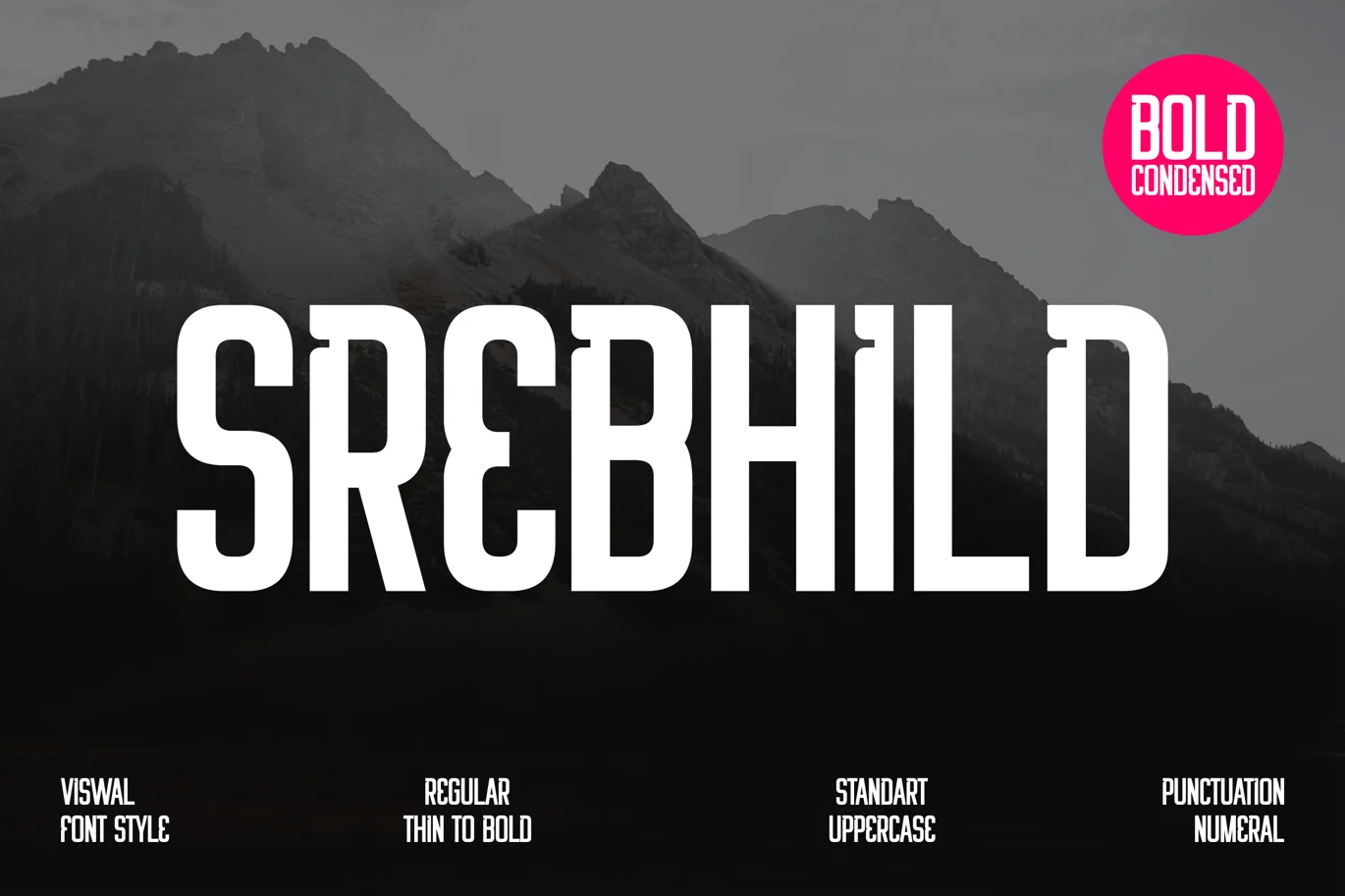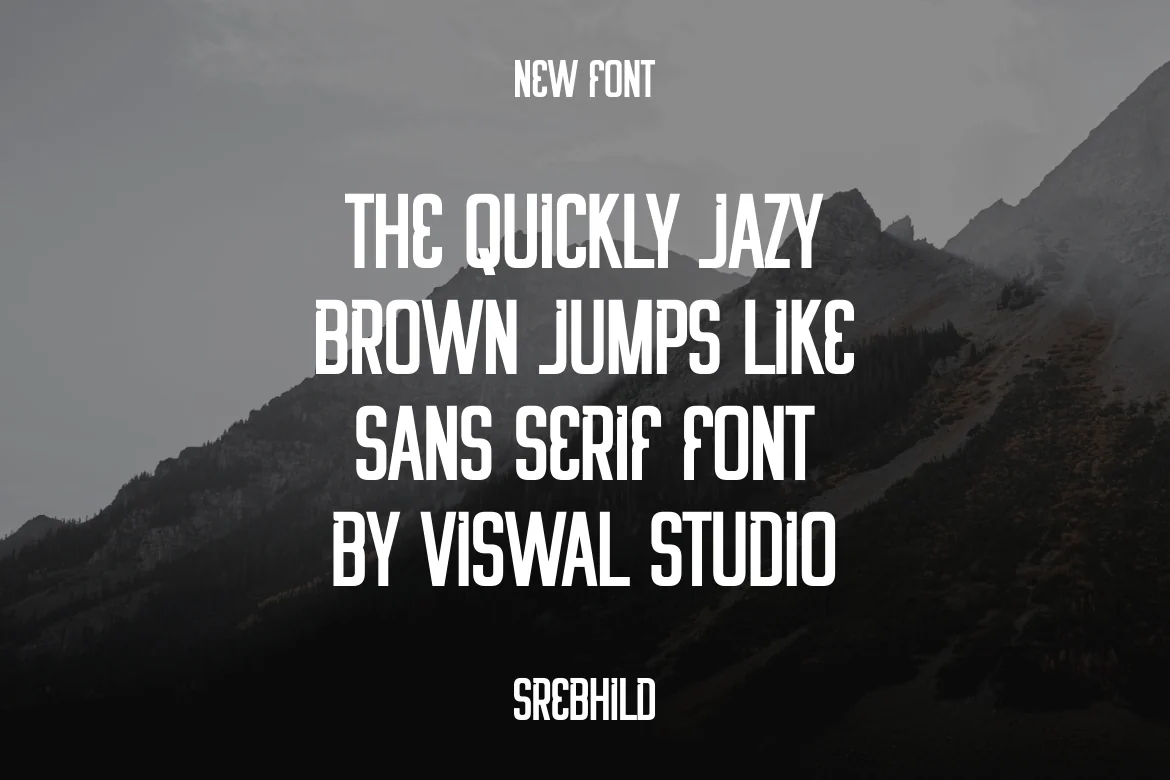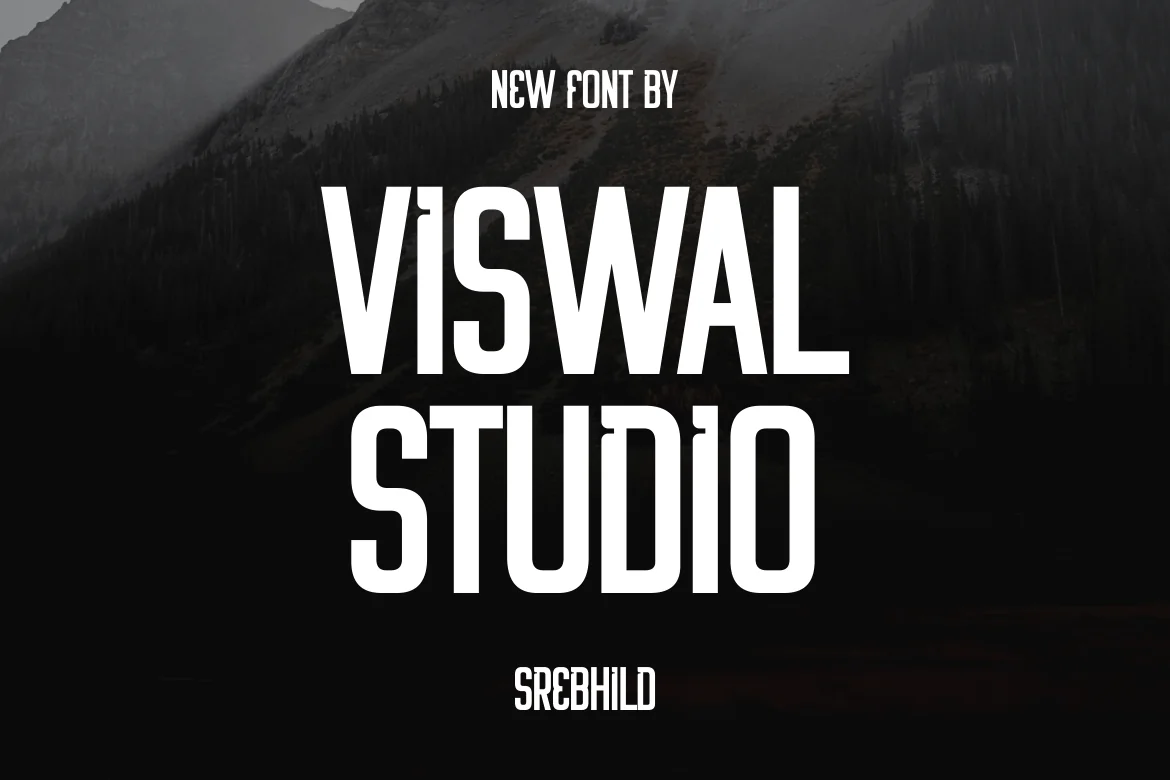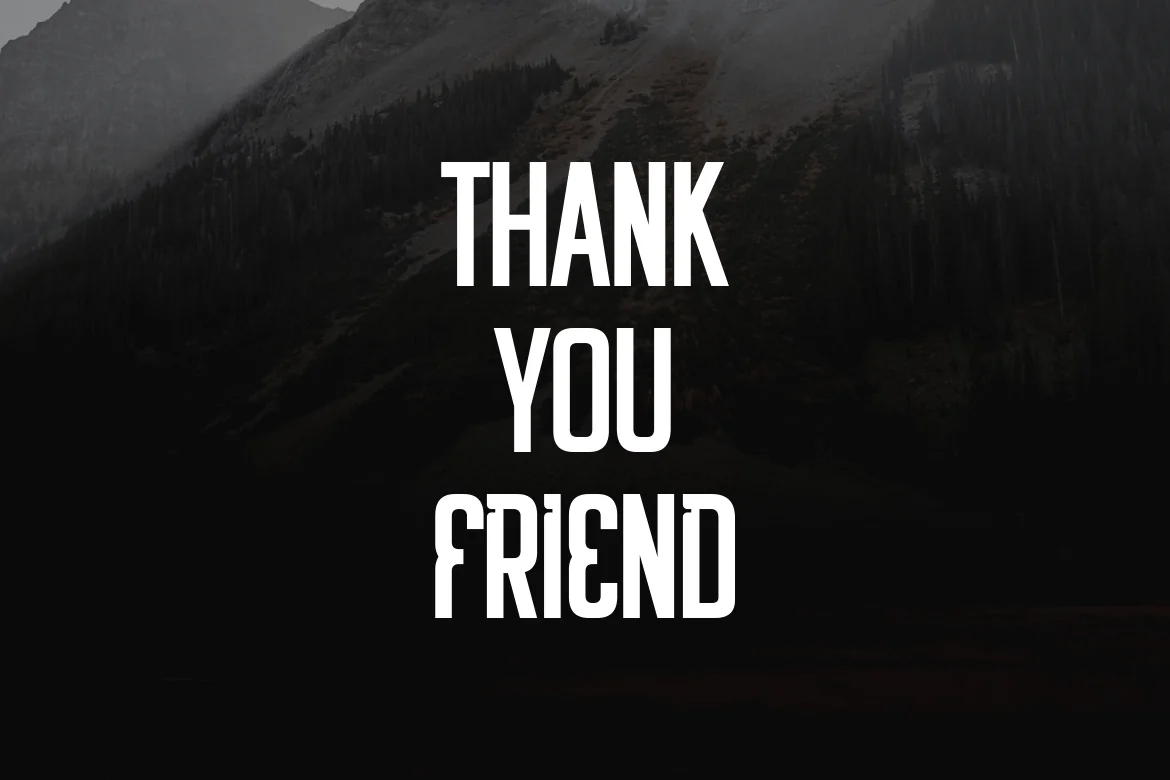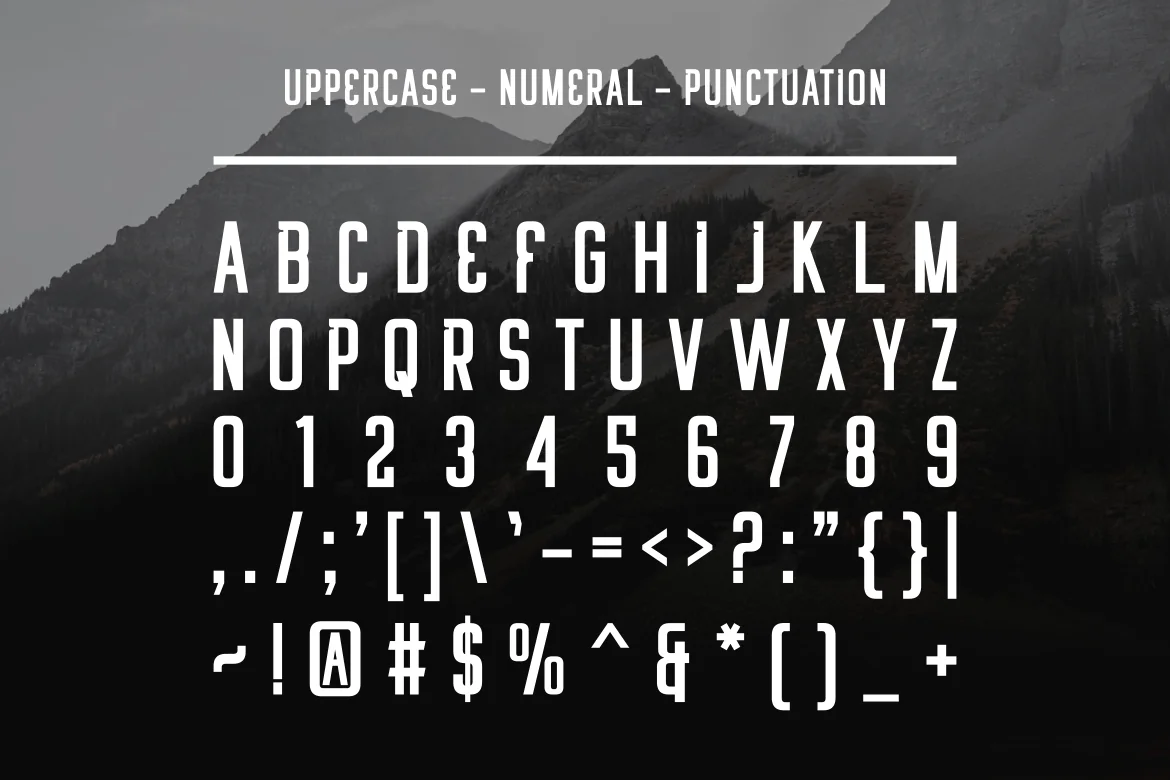
Srebhild – Modern Sans Font
Presenting Srebhild Is A Modern Sans Serif Font.
Can Make It Easier To Convey The Message In Your Design. Font Is Suitable For Logo, Labels, Badge, Branding, Magazine, Poster, Title, Gigs, Covers And Etc. Our Fonts Have Uppercase & Lowercase, Numeral & Punctuation, And Opentype Features. For Amazing Designs You Can Mix With Other Fonts As A Complement.